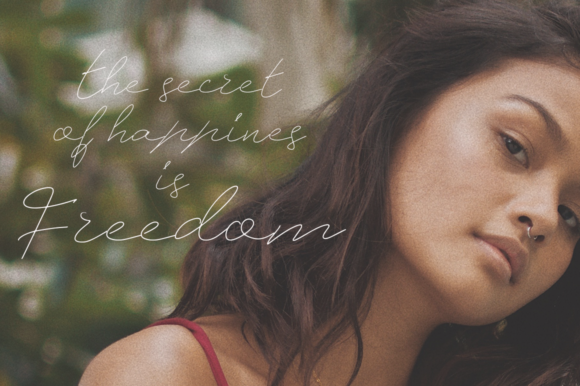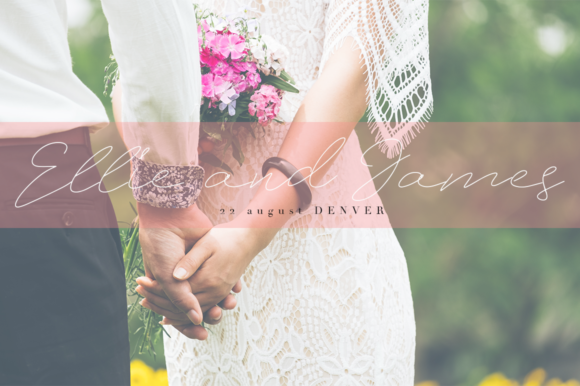
Introduction to Gordea Font
Gordea is a modern font.
Every single letter has been carefully crafted to make your text look beautiful With its modern script style, Gordea is perfect for many different projects, such as: logos, photography, watermarks, quotes, blog headers, posters, weddings, branding, logos and much more.